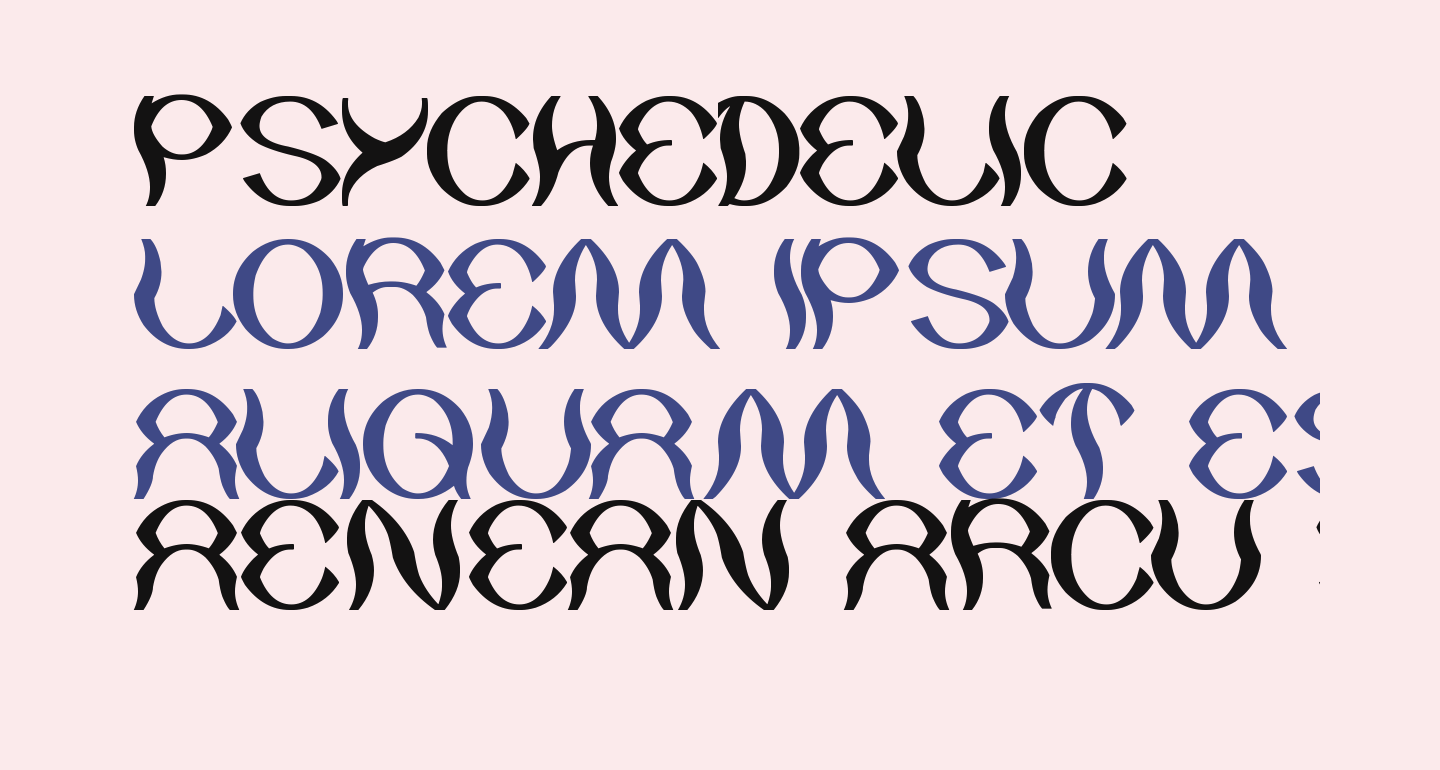
Cool Psychedelic Fonts Free References
20+ best psychedelic fonts for trippy graphic design, branding & logos moonshine — retro psychedelic font los monstruoz — psychedelic style viva kaiva —. Kenzo is great for groovy band music. Isometric differs in the colorful shade.
One Of The Coolest Things About Psychedelic Fonts Is How Wild The Letter Designs.
20 psychedelic fonts plinc superstar plinc banjo cooper nouveau. Click to find the best 21 free fonts in the 1960s psychedelic style. These super hip groovy psychedelic fonts invoke memories of the swinging sixties with their funky festival stylings.
Isometric differs in the colorful shade. Kenzo is great for groovy band music. Kush font is presented by our house graphics.
Simply Put, It’s A Psychedelic Version Of Eckmannschrift By Otto Eckmann.
Best free psychedelic fonts london. Download psychedelic font fonts & psychedelic at youworkforthem. Although kenzo is a groovy psychedelic font, it has a touch of futuristic style to it.
Lucid Dream Is A Fun Psychedelic Font That Comes With The Perfect Design For Crafting Casual Typography.